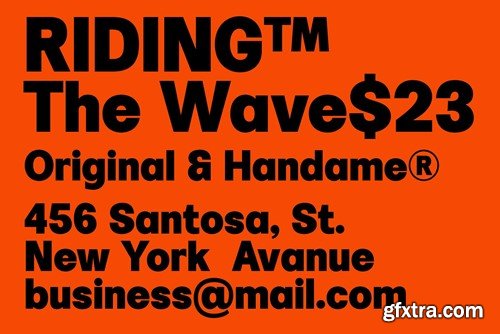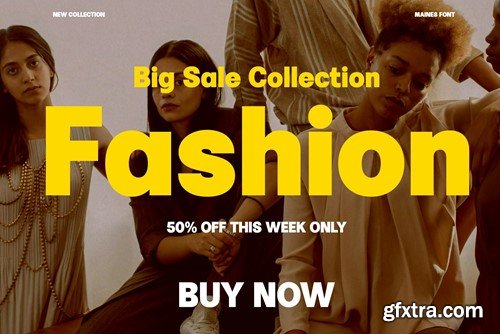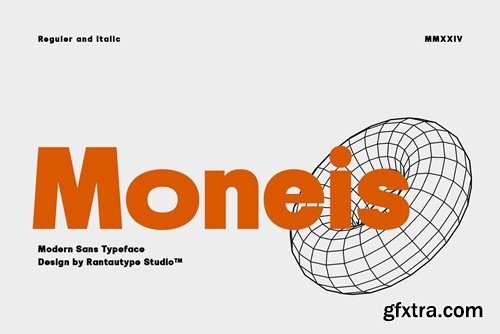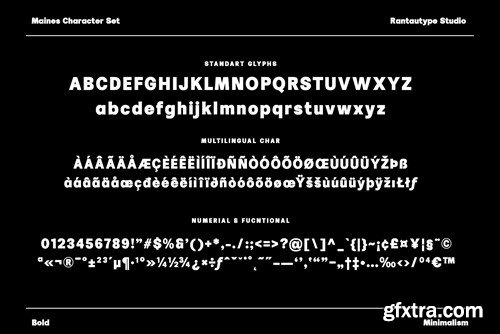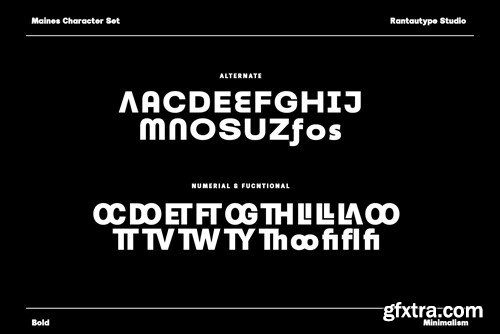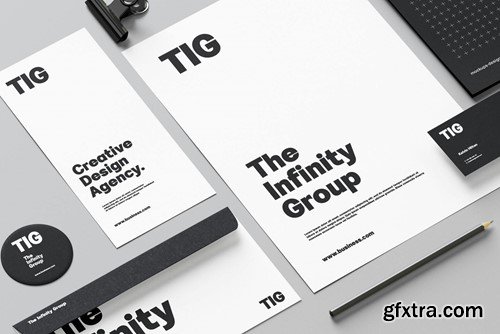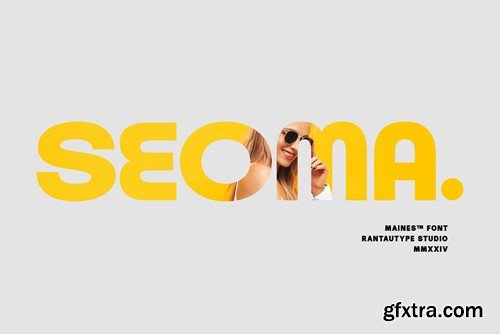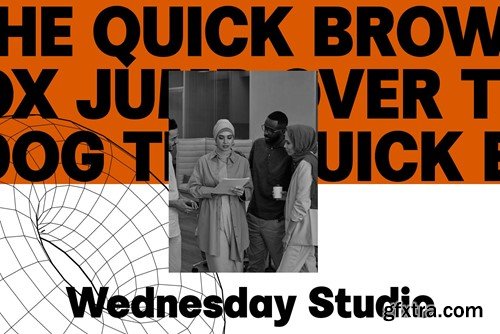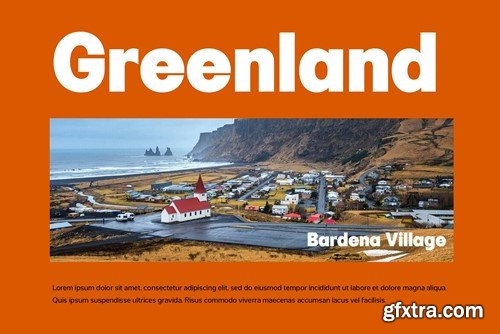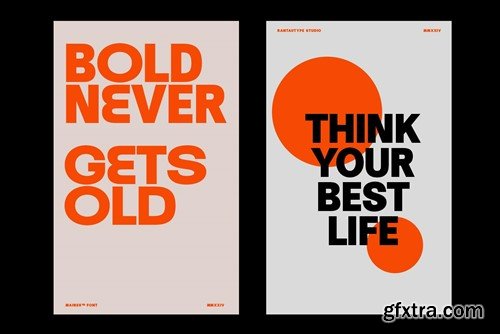
Monois Modern Sans 字型 VM52878
Moneis is designed to modern grotesque with geometric details and deep in industrial design principles. Mones come with alternate, ligature and multilinggual character give it greater versatility allowing it to adapt to various contexts. Moneis is a perfectly choice for any creative endeavor, chic, lifestyle design such as logos, advertisements, watermark on photography, stationery, branding project, display and magazine, invitation, corporate brand, product design, label, business project and many other project with elegant touch. What you have: Fonts include Multilingual Character for: Afrikaans, Albanian, Asu, Basque, Bemba, Bena, Breton, Chiga, Cornish, Dutch, English, Estonian, Filipino, Finnish, Friulian, Galician, Gusii, Indonesian, Irish, Italian, Kabuverdianu, Kalenjin, Kinyarwanda, Luo, Luxembourgish, Luyia, Machame, Makhuwa-Meetto, Makonde, Malagasy, Manx, Morisyen, North, Ndebele, Nyankole, Oromo, Portuguese, Quechua, Romansh, Rombo, Rundi, Rwa, Samburu, Sango, Sangu, Scottish, Gaelic, Sena, Shambala, Shona, Soga, Somali, Spanish, Swahili, Swedish, Swiss, German. Thank you for your purchase! Hope you enjoy with our font!